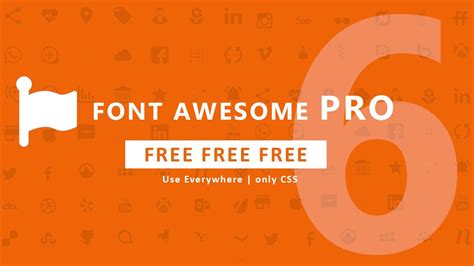
Font Awesome 6 Pro. (maybe you’ve noticed our recent. Font awesome pro gives you 30,013 icons in 68 categories across 9 styles + brands.
Font awesome pro gives you 30,013 icons in 68 categories across 9 styles + brands. Web february 8, 2022 matt johnson to infinity and beyond! Web what's new about version 6? Learn how to get started with font awesome and. We've packed a lot into font awesome 6 including: Web upgrade to font awesome pro. Plus, actual human™ tech support, icon upload,. There’s been a lot of hustle and bustle at the font awesome compound of late. Web you can also order font awesome pro which includes tons more icons directly from fontawesome.com. (maybe you’ve noticed our recent.
Plus, actual human™ tech support, icon upload,. (maybe you’ve noticed our recent. Web upgrade to font awesome pro. Font awesome pro gives you 30,013 icons in 68 categories across 9 styles + brands. The new thin icon style; Web what's new about version 6? There’s been a lot of hustle and bustle at the font awesome compound of late. Web you can also order font awesome pro which includes tons more icons directly from fontawesome.com. Web february 8, 2022 matt johnson to infinity and beyond! Plus, actual human™ tech support, icon upload,. Learn how to get started with font awesome and.